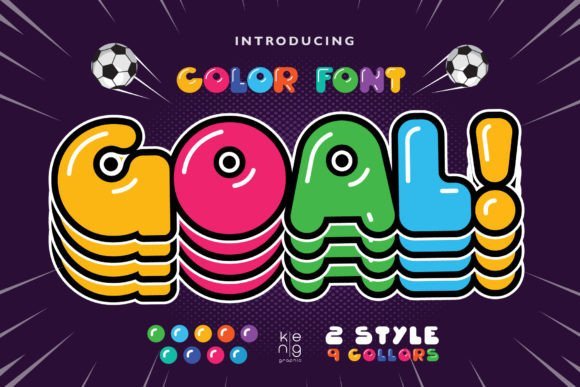
Introduction to Goal Font
Goal is a cartoon-style display color font with a great punch.
Everything written in this font will be instantly recognizable and will attract attention It will work great for comic book style, online games, cards, love shirts, posters, movie titles, eye-catching social media posts, or anything that requires youthfulness and courage.